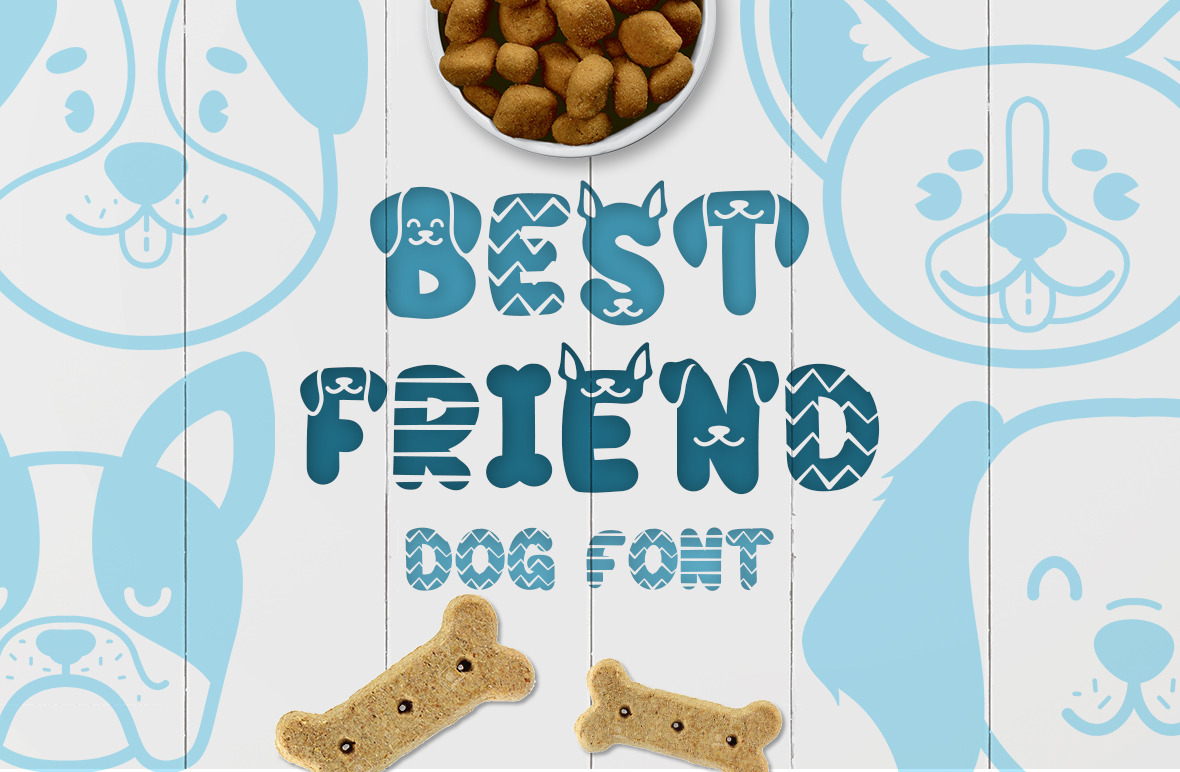
Best Friend - Dog font and clipart
Best Friend is a cool, thick lettered dog themed decorative font. No matter the topic, this font will be an incredibly asset to your fonts’ library, as it has the potential to elevate any creation.
-Best Friend font